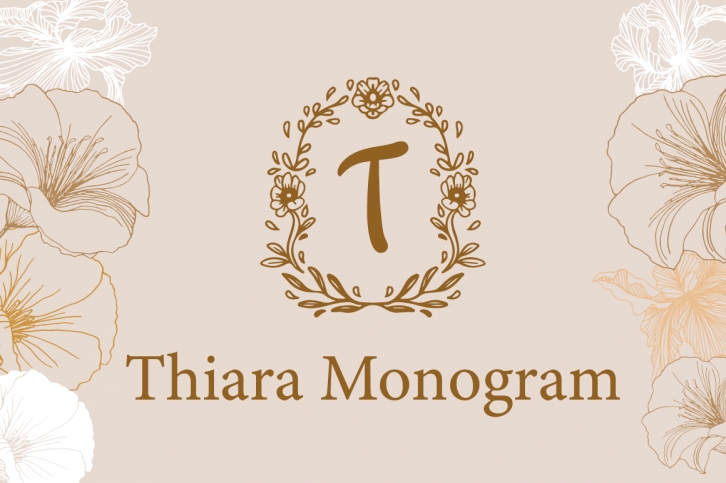
Thiara Monogram is a floral decorative font. Fall in love with its amazingly designed characters, and use them for your special occasions, business designs, logos, branding, social media posts, and wedding cards.